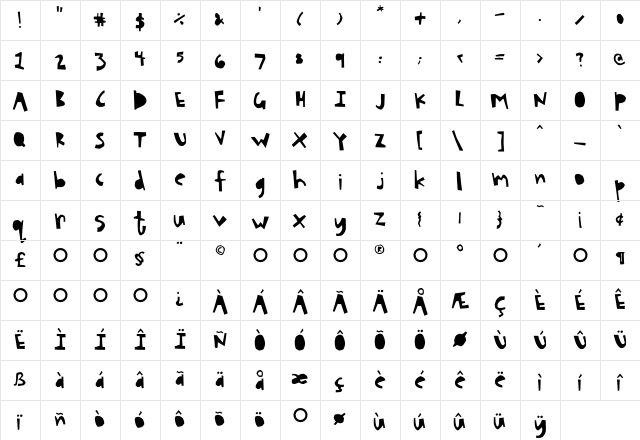
HouseCut Regular
Design Context for HouseCut Typeface
HouseCut is a composed and adaptable typeface that performs quietly and consistently across a wide range of design contexts.